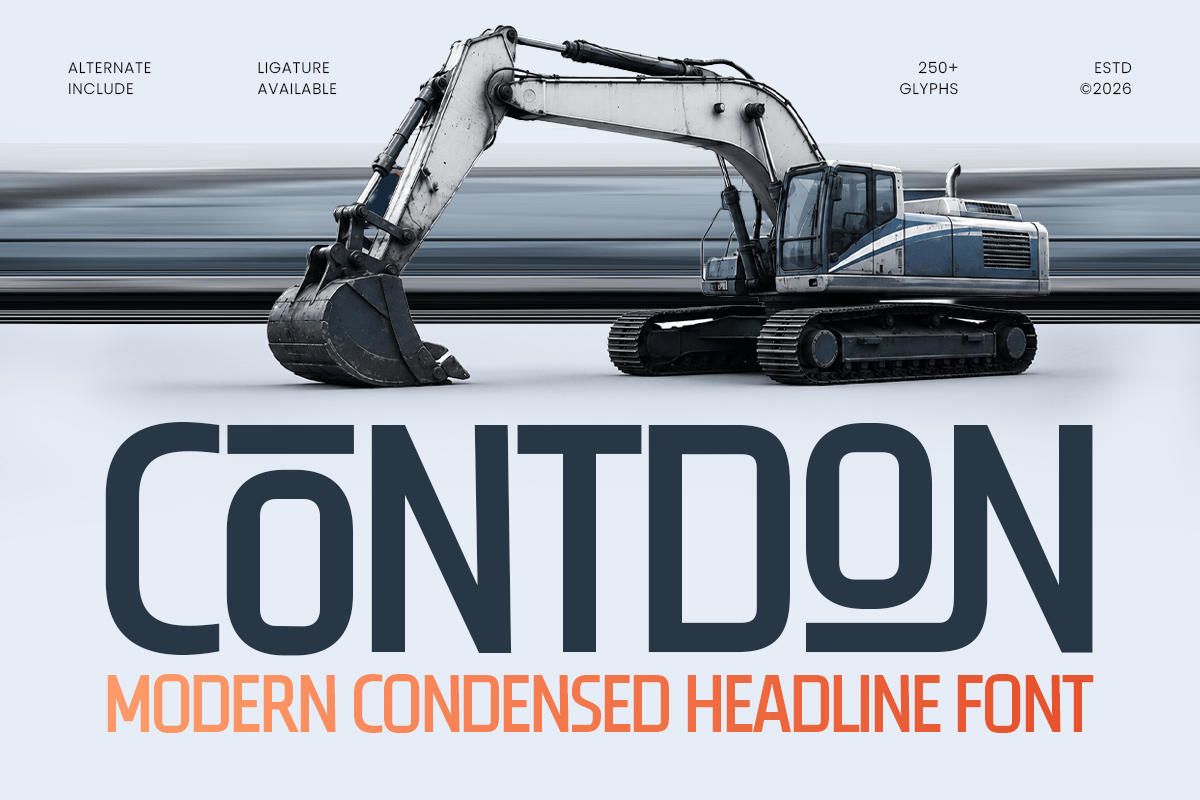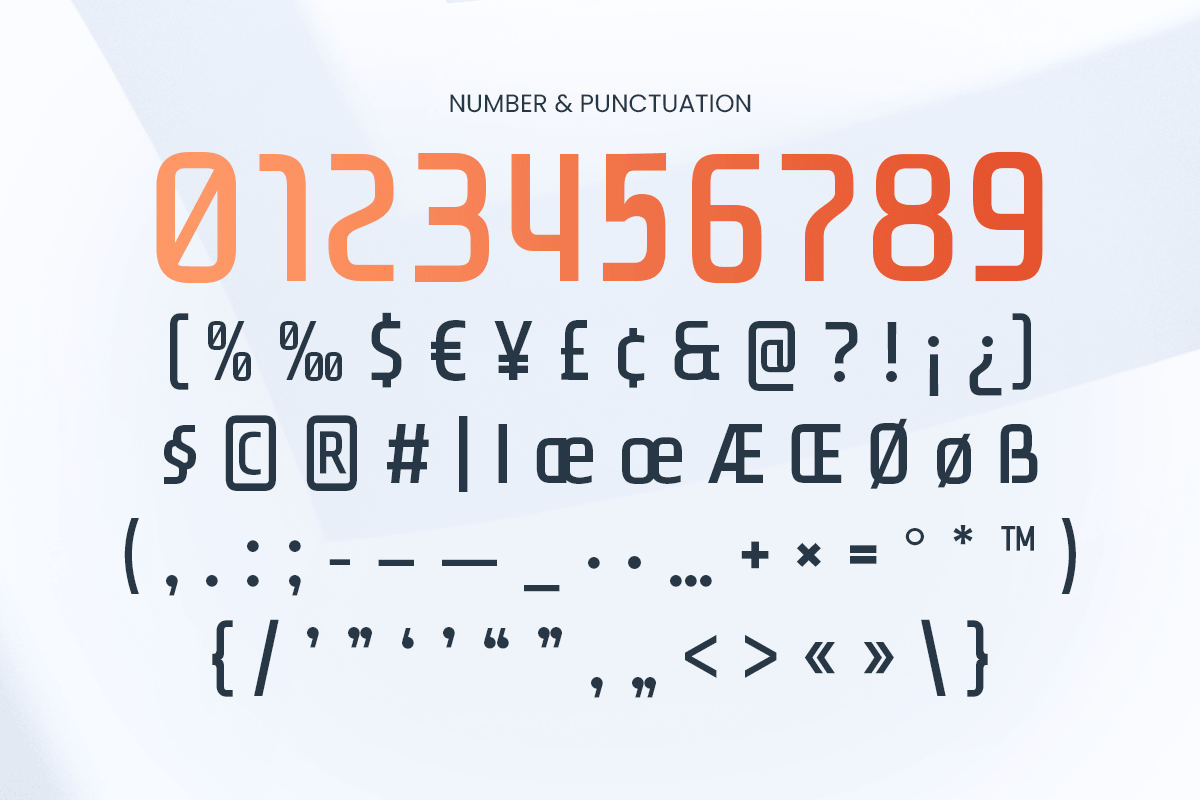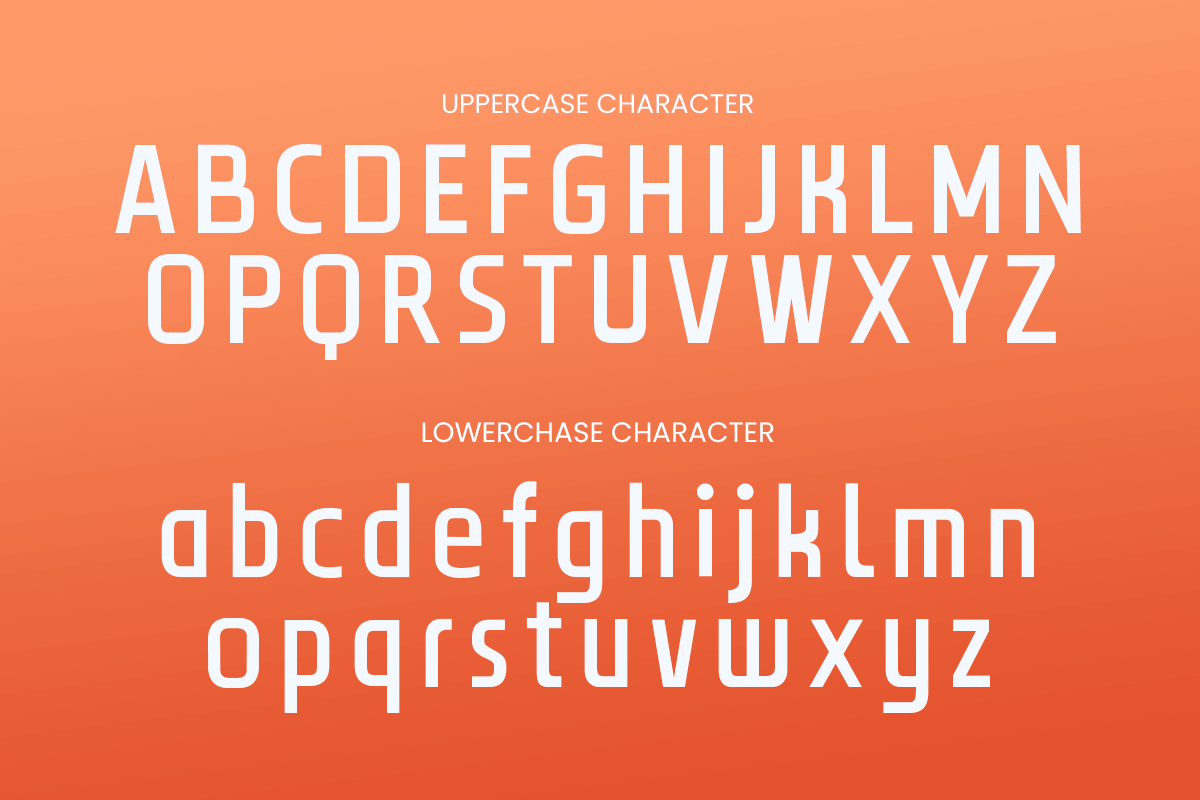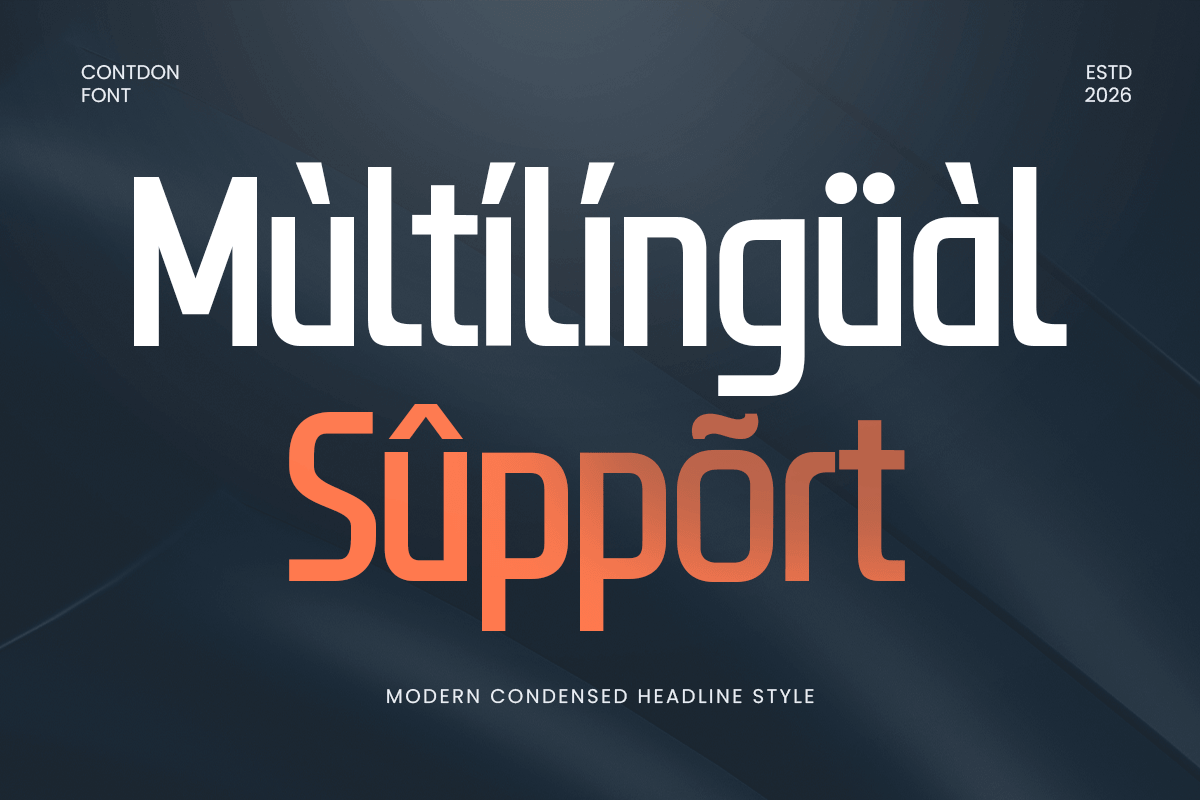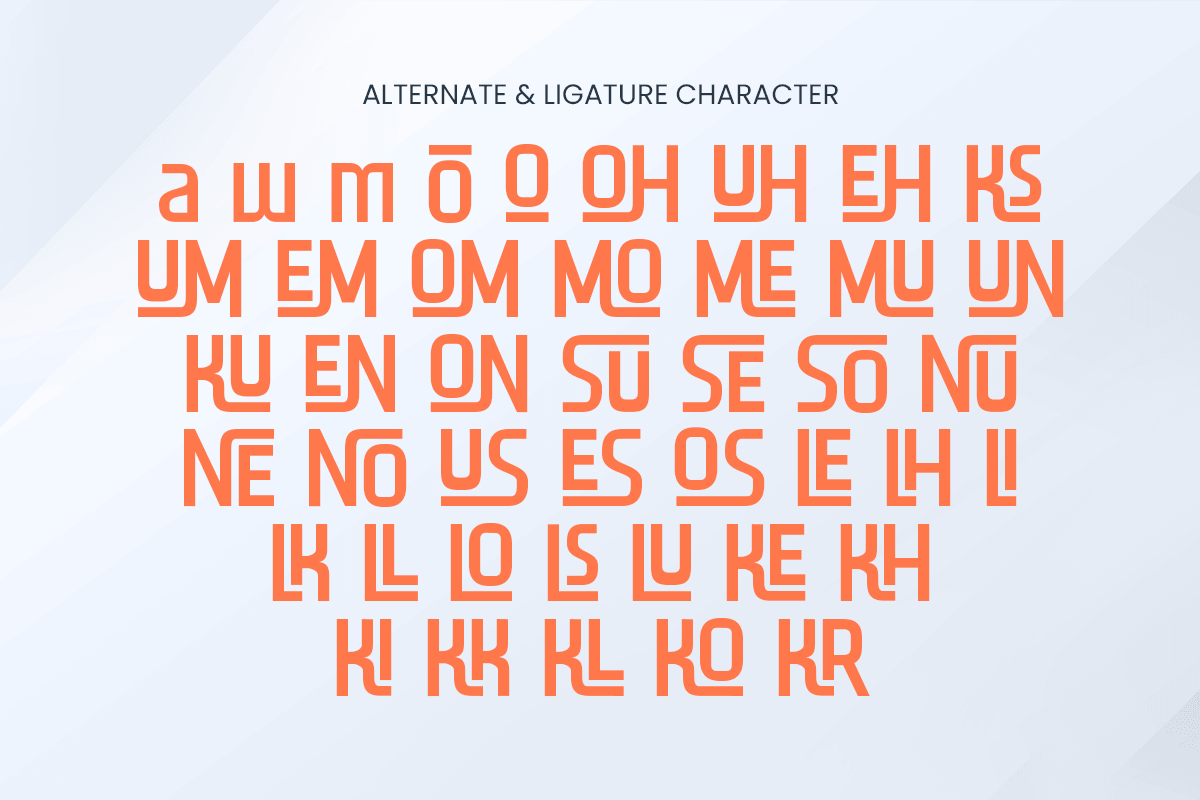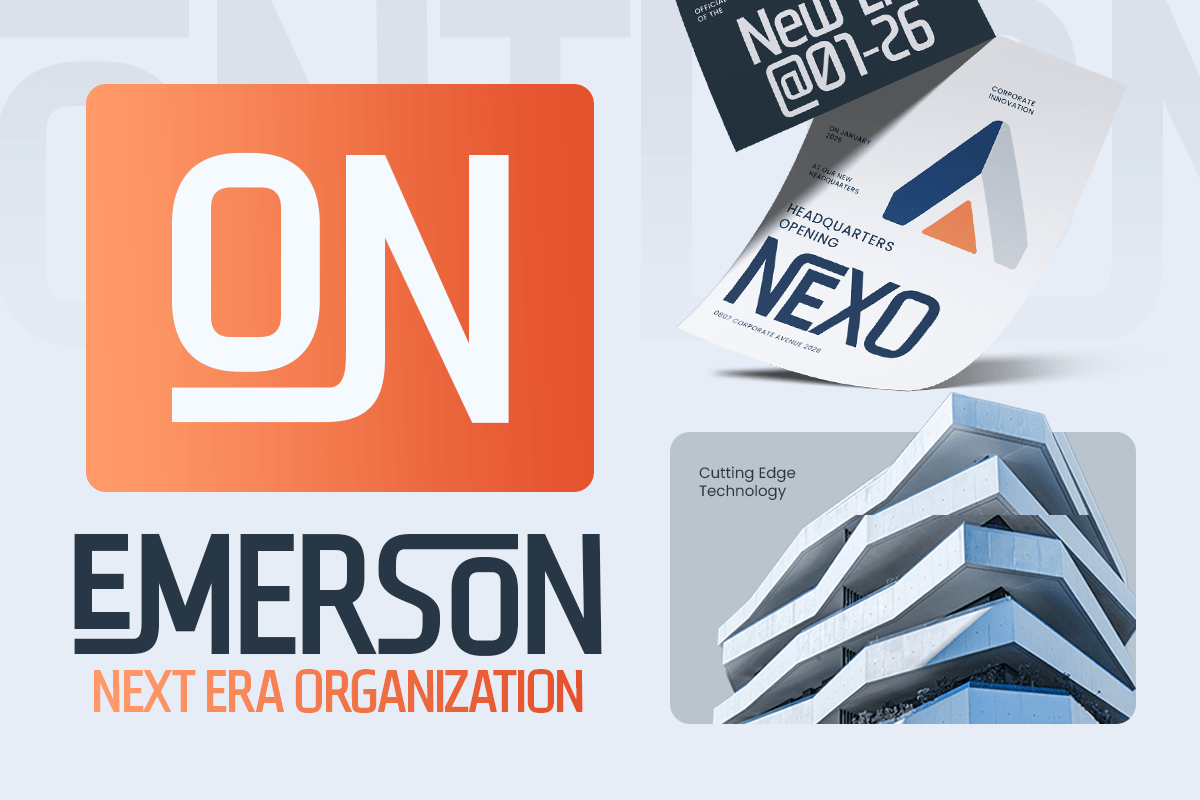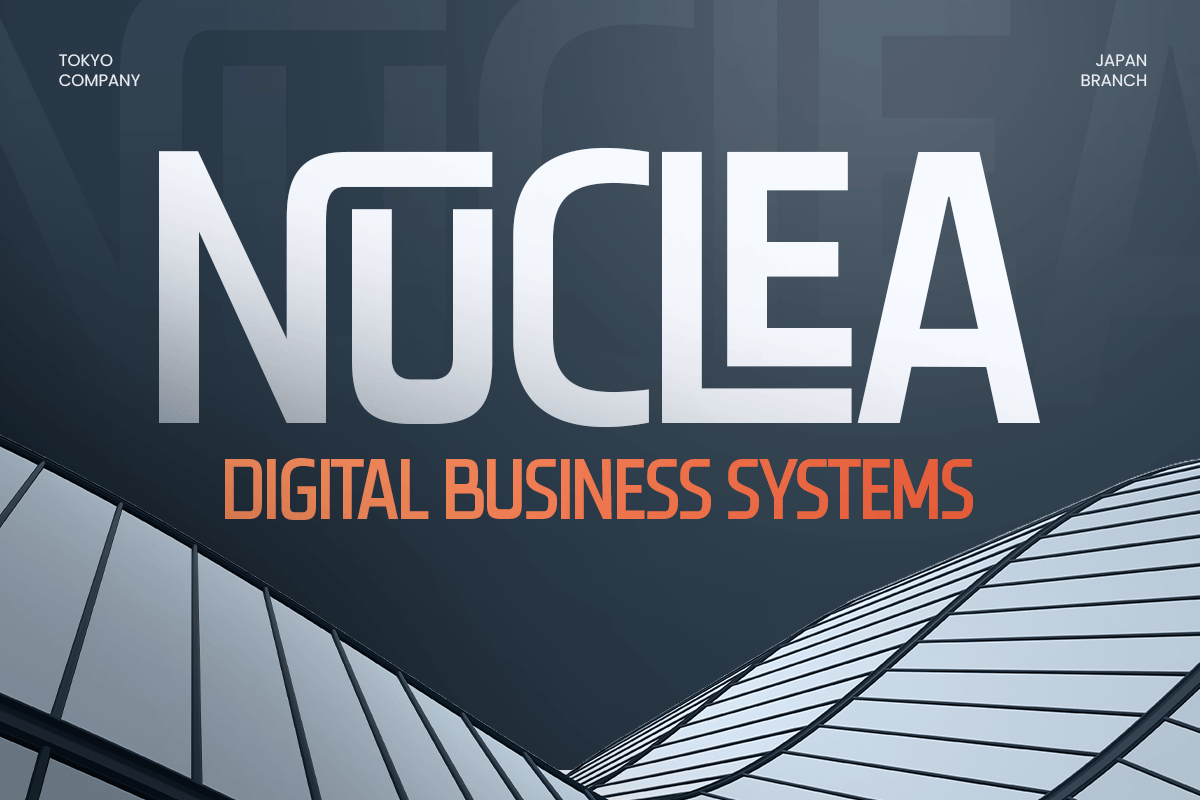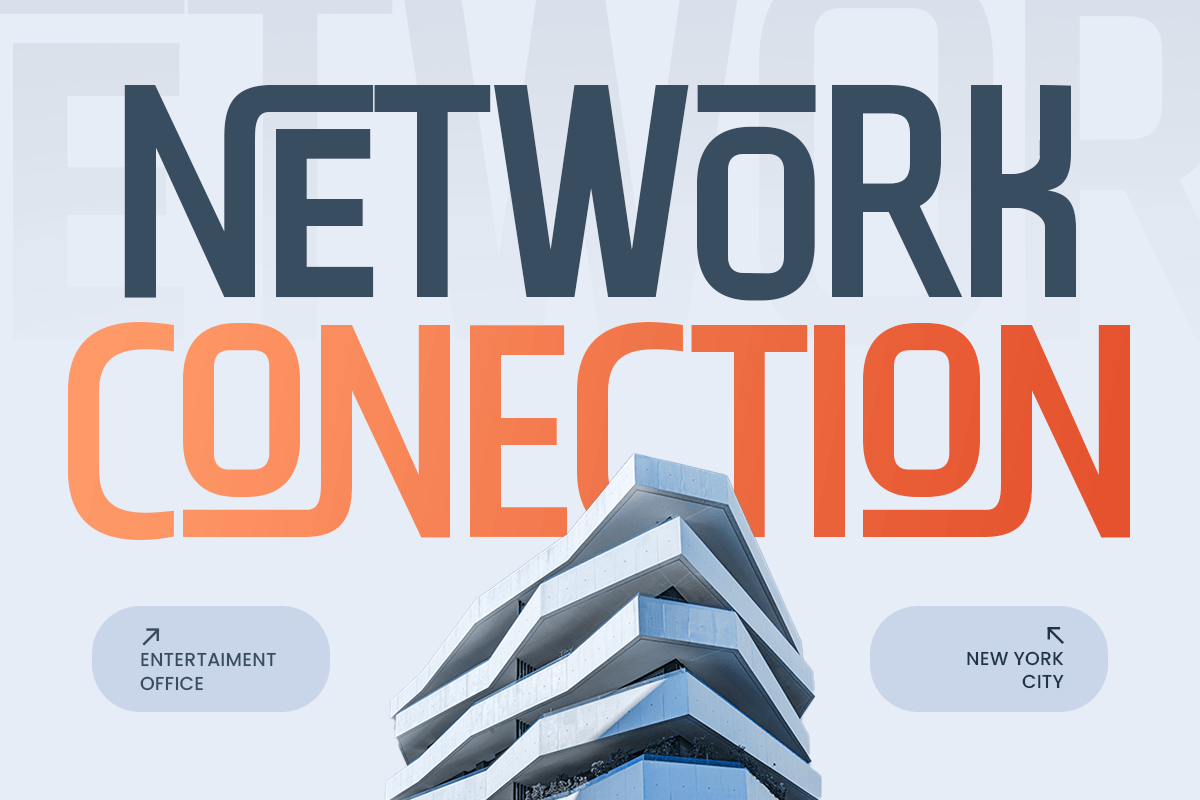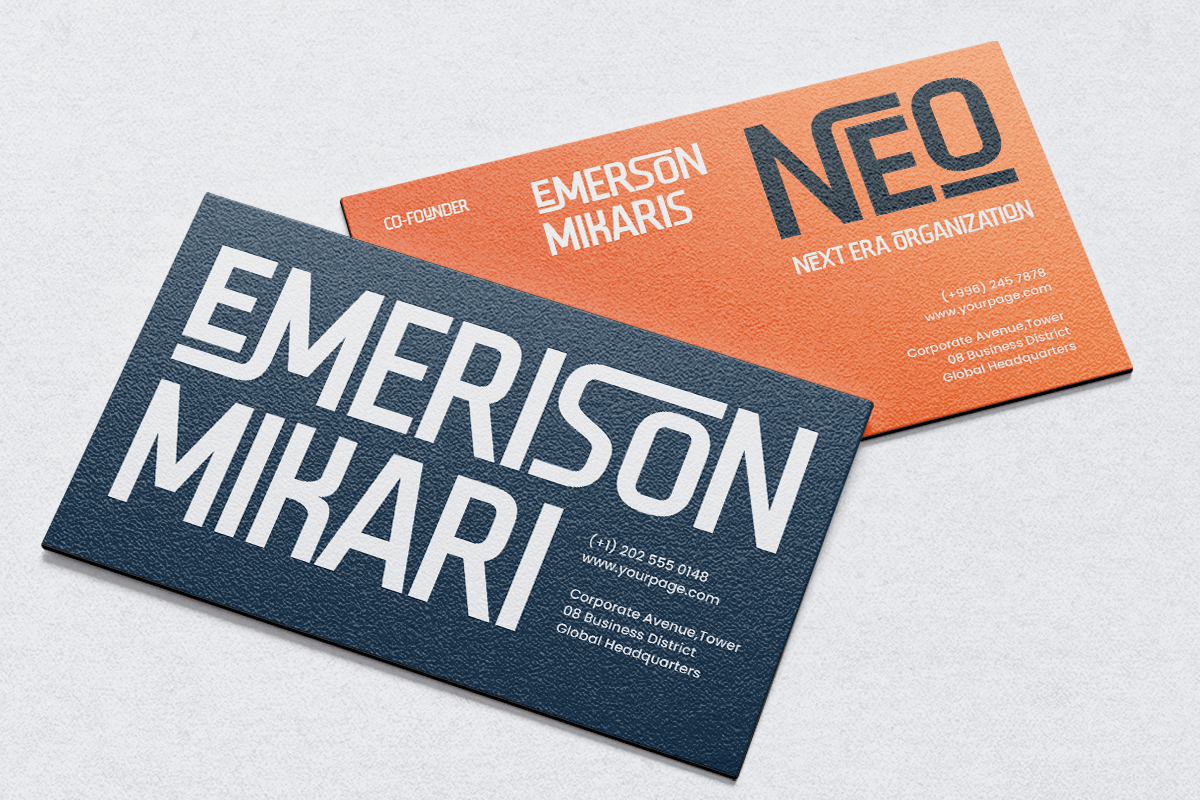
CONTDON – Modern Condensed Headline Font
CONTDON is a modern condensed headline font designed with a sleek and powerful character. Featuring tall proportions, clean structure, and a contemporary style, CONTDON creates a strong visual impact for modern branding, editorial layouts, and attention-grabbing headlines.
Perfect for logos, brand identity, posters, packaging, magazine covers, advertising, and digital designs, CONTDON delivers a professional and confident appearance. Its condensed form helps maximize space while maintaining excellent readability across both print and screen applications.
With its versatile modern aesthetic, CONTDON is an ideal choice for creative projects that need a bold typographic presence. From corporate branding to fashion campaigns, social media graphics, and promotional materials, this font brings clarity, style, and a refined contemporary feel.
CONTDON – Modern Condensed Headline Font Features
- Clean modern condensed letterforms
- Strong headline style with bold visual impact
- Perfect for logos, branding, posters, and editorial design
- Ideal for packaging, advertising, and social media graphics
- Includes uppercase, lowercase, numerals, and punctuation
- Great for both digital and print projects
- OpenType features for creative typography flexibility
Multilingual Support
Afrikaans, Albanian, Asu, Basque, Bemba, Bena, Breton, Chiga, Cornish, Dutch, English, Estonian, Filipino, Finnish, Friulian, Galician, German, Gusii, Indonesian, Irish, Italian, Kabuverdianu, Kalenjin, Kinyarwanda, Luo, Luxembourgish, Luyia, Machame, Makhuwa-Meetto, Makonde, Malagasy, Manx, Morisyen, North Ndebele, Nyankole, Oromo, Portuguese, Quechua, Romansh, Rombo, Rundi, Rwa, Samburu, Sango, Sangu, Scottish Gaelic, Sena, Shambala, Shona, Soga, Somali, Spanish, Swahili, Swedish, Swiss, and more.